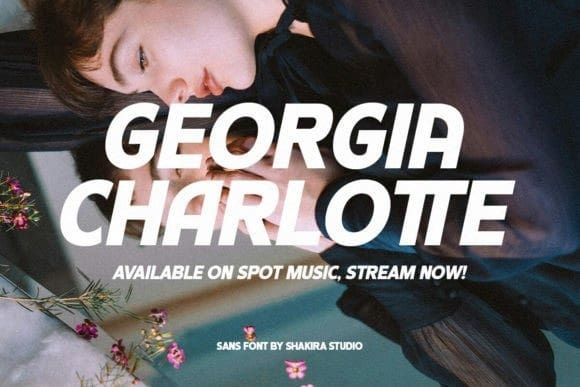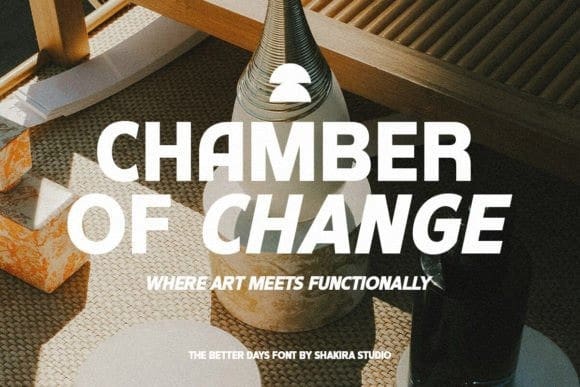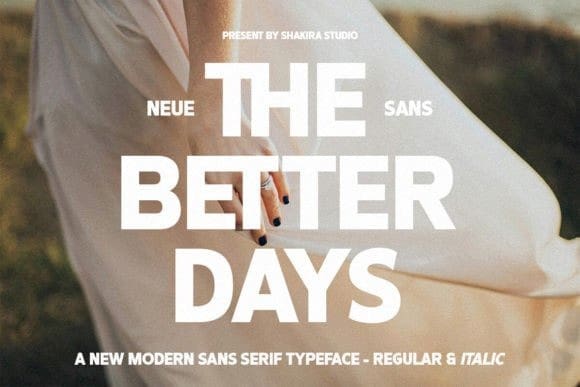
The Better Days Font
The Better Days Font a modern Sans Serif font that embodies simplicity and clarity. Perfect for contemporary branding and digital projects, this versatile typeface is available in both regular and italic versions. Its clean lines and minimalist style make it ideal for headlines, logos, and body text. Enhance your design projects with the modern elegance of TheBetter Days.